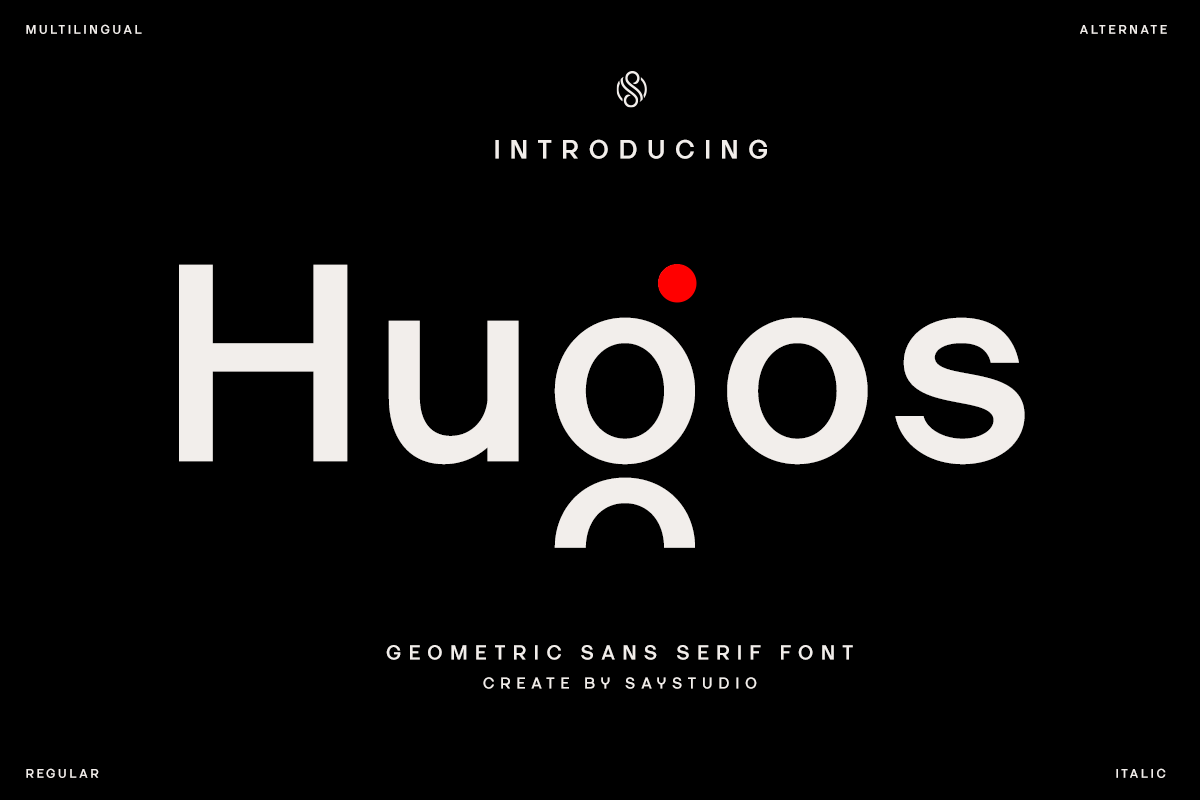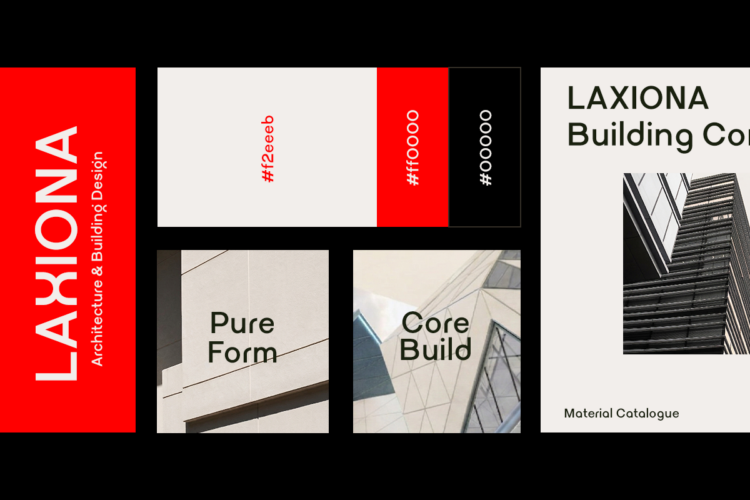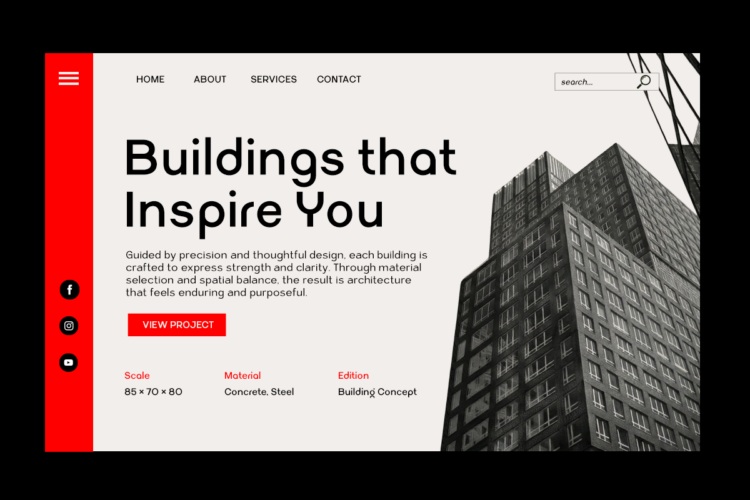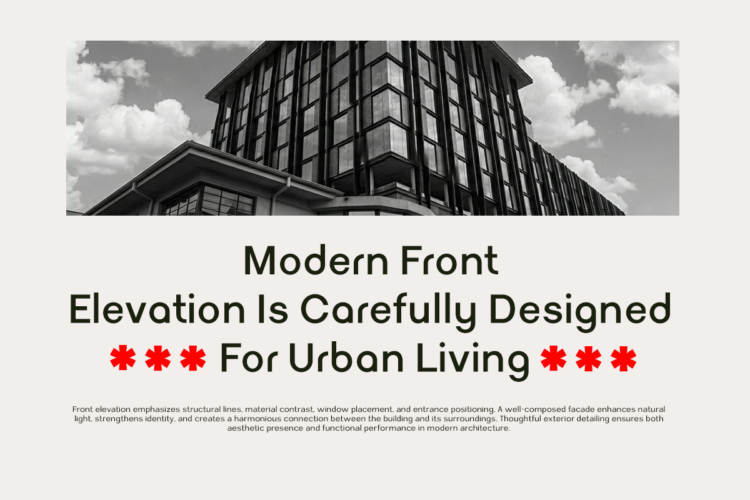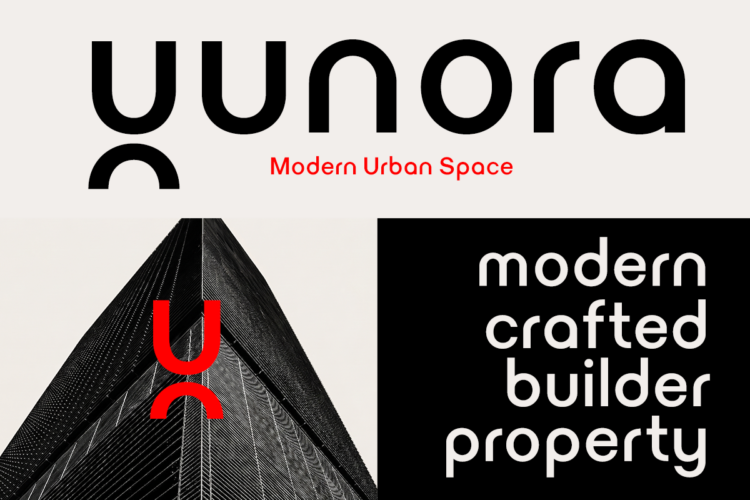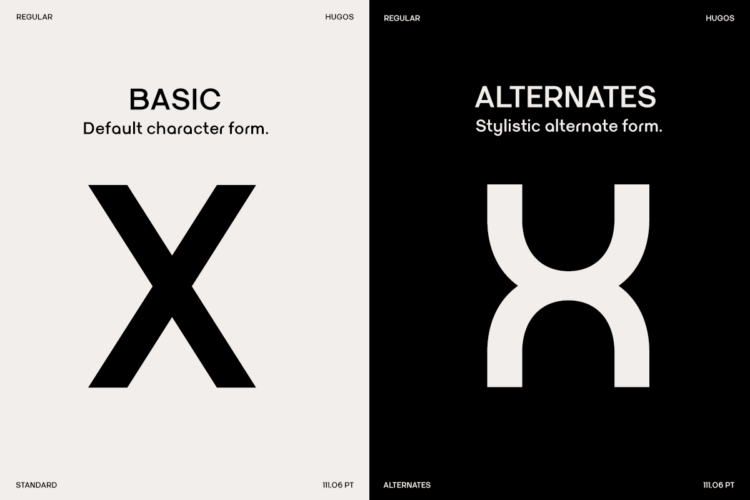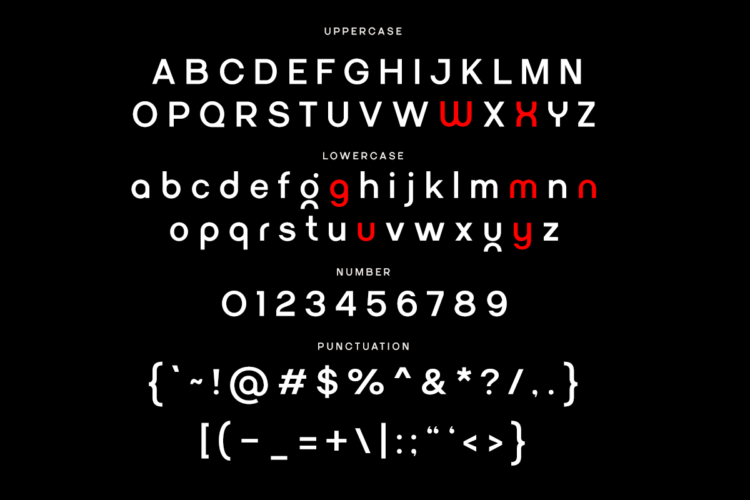
Hugos – Geometric Sans Typeface
Hugos is a geometric sans serif font that combines modern simplicity with distinctive visual character. Built with clean shapes and balanced proportions, it delivers a minimalist yet bold appearance that feels fresh and contemporary. Its unique letter construction adds personality while maintaining clarity and readability across different design contexts.
Designed for versatility, Hugos works perfectly for branding, logos, UI design, and modern digital layouts. The geometric foundation gives it a structured and professional feel, while subtle stylistic details make it stand out in headlines and identity systems. With both regular and italic styles, it offers flexibility for dynamic compositions.
With multilingual support and carefully crafted alternates, Hugos is ready for global use and creative exploration. Whether you’re building a tech brand, a modern interface, or a clean visual identity, this typeface delivers a sleek and forward-thinking aesthetic.
– Stylish Alternates
– Standard Uppercase & Lowercase